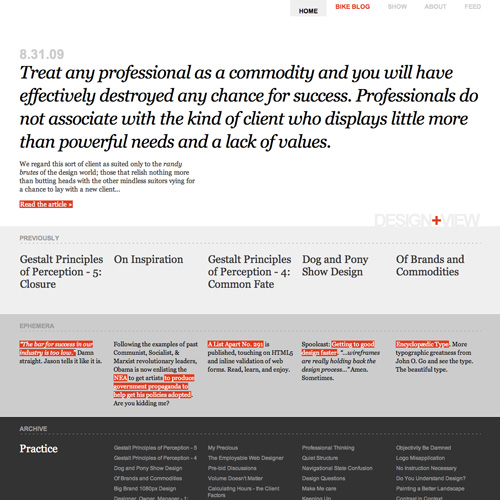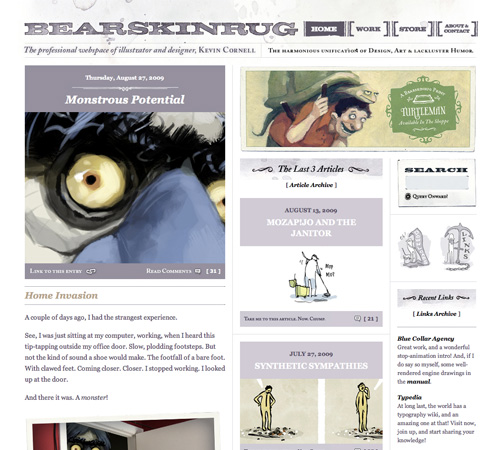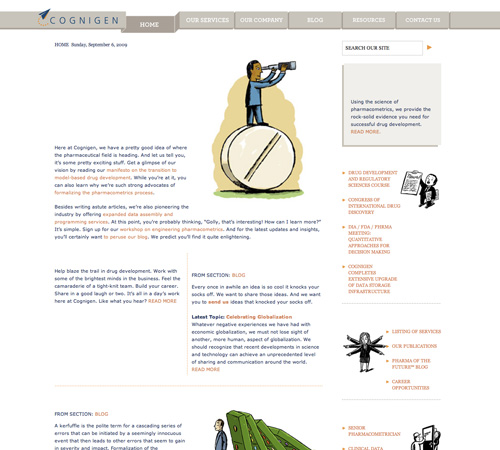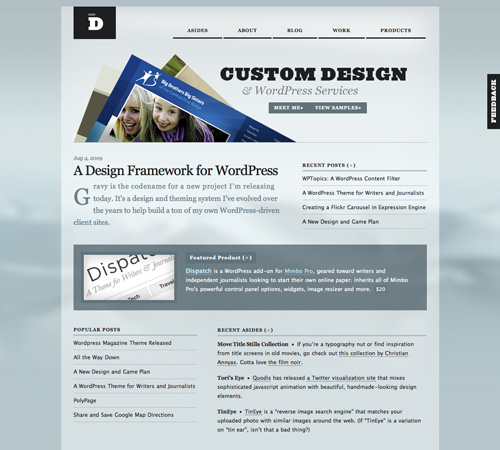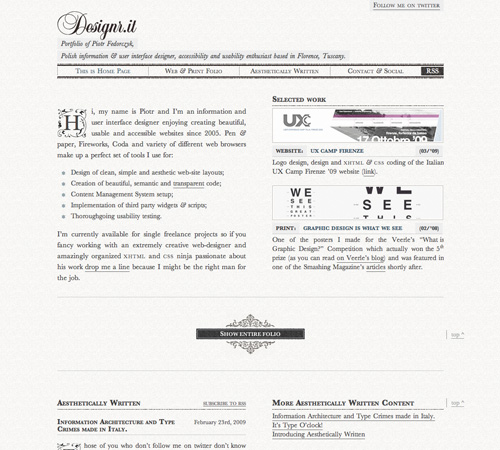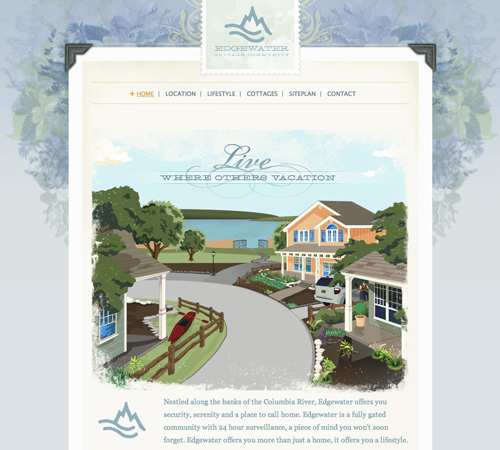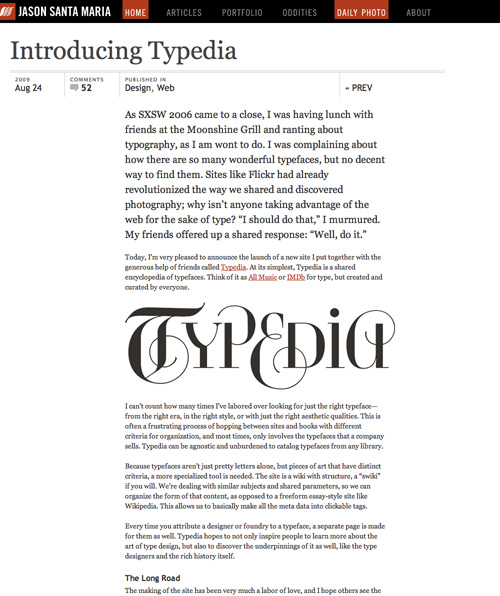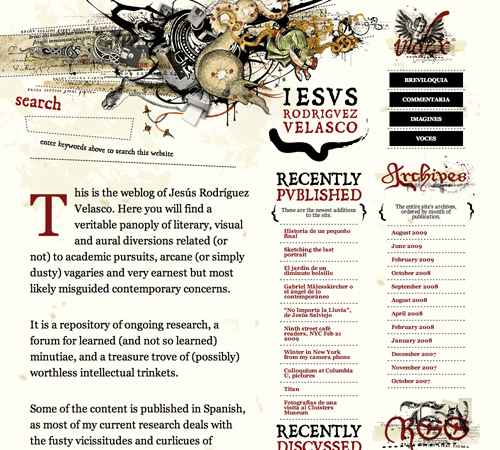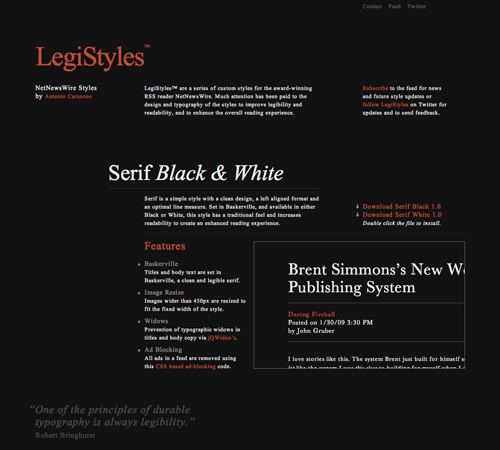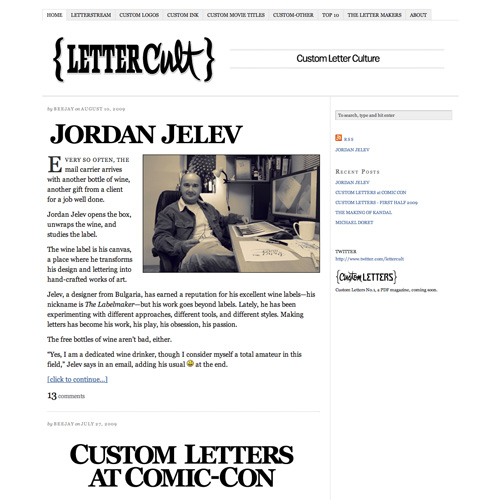
7 Rules for Mixing Multiple Font Styles in One Good Web Design
Typography can be one of the most creatively rewarding parts of web design, but it can also be one of the most frustrating. Working with just one or two fonts can be challenging enough for most web designers, yet some still insist on using three, four, seven, or even more fonts in their designs. Some people excel at creating sites with complicated typography, while others fail miserably. Read on to find out tricks to creating fantastic website designs with complicated type, as well as some great examples of sites that get it right, and those that get it wrong.
1. Pay attention to scale and proportion
Multiple fonts work best together when they have similar proportion and scale. For example, Georgia and Verdana have similar shapes, even though one is serif and one is sans serif. The same could be said for Times New Roman and Arial Narrow. Look at specific characters in each font to see how similar they are, as well as entire words.
Fonts don’t necessarily have to be identical in scale and proportion. What you want to look for are either fonts that are very, very similar, or fonts that are very, very different. Fonts that are “kind of the same” are generally going to look strangest when placed near each other. Fonts that are very similar are going to appear to have the same weight on screen in most cases, while fonts that are very different can more easily be played against one another to give emphasis to specific parts of the site.
2. Unify fonts with color or style
If you throw up six different fonts on your site, with ten different colors, and four different styles, you’re probably just going to give your visitors a headache (if they stick around that long). While you don’t necessarily have to only use one color or one style, you need to be much more careful in how you use them.
As far as colors go, try to stick to colors either in the same hue or saturation level. You want the colors to mesh, rather than clash.
You have a bit more leeway with font styles, but make sure that the styles you choose make sense with the existing weight and emphasis of the particular fonts you’ve chosen. You can make a heavier font oblique (italic) to de-emphasize it’s weight a bit, or add a strong tag to a lighter-weight font to bring it more in-line with the heavier fonts on your page. Underlining can emphasize both light and heavy fonts without making either appear heavier than they already are.
3. Pay attention to priority and emphasis of different fonts
This has been touched on a bit already, but the priority and emphasis that different fonts convey naturally has to be taken into account. Some fonts are going to draw more attention than others. It’s one reason using multiple fonts is both incredibly fun and very hard to get right.
You can compensate for heavier or lighter fonts in a few ways. Increasing or decreasing the size is the most obvious. Adding styles and font decorations (oblique, strong, underline, etc.) can also emphasize and even help de-emphasize most fonts.
Changing the color of a font can help, too. If your typography is mostly black, adding in shades of gray to de-emphasize certain parts can work really well. In fact, putting certain type in gray can work even if your design is more colorful (to really unify things, make sure the gray has just a hint of one of the main colors in your other typography).
4. Avoid anything too similar
Similar fonts are tricky. Using something like Georgia and Garamond right near each other, for example, doesn’t really do much and can end up making one or both fonts look a little off. A lot of non-designer folks might not really see the differences between the fonts and think they just look strange—not quite right. The same can be said for fonts like Verdana and Tahoma or Arial and Helvetica. Try for a bit more variation for the best end-result.
5. Keep body text readable
While playing around with funky typography can work really well in navigation, headers, and other parts of your site, large chunks of body copy just don’t work well with multiple typefaces. Stick to one, preferably site-wide. Pick a font that’s easy to read and web safe while also being similar in proportion and weight to the other fonts on your site.
designr
6. Don’t overlook different font styles
We’ve talked about how using different styles and font decorations can change the priority and importance of different typographic elements. But one thing many designers overlook is using multiple styles, sizes, and decorations to achieve the look of mixed typography while still working entirely with web-safe fonts. This technique is also great for designers who are just starting to experiment with web typography, as it eliminates many of the common issues with proportion and scale between different typefaces. Mix italic, bold, small caps, all caps and other styles within the same fonts to get the look of mixed typefaces without the headaches.